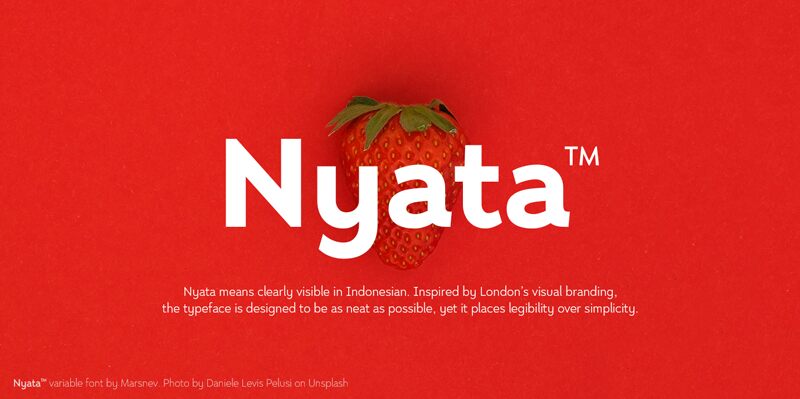
Nyata Clearly Visible, No Matter What.
I love London for its finest visual branding, especially its Johnston typeface spreading all over the city. It inspired me to create this new font-family: Nyata.
Nyata means clearly visible in Indonesian. The typeface is designed to be clean, unique, and legible. It is a great combination for any display requiring high legibility, such as the city's way-finder.
Long ascenders help some characters more obvious. You will never confuse whether it is an h or an n. Moreover, I tried to create all the letters that are distinguishable. Of course, no time for people to doubt between Uppercase I and lowercase l when seeing a way-finder. Last but not least, it is equipped with tons of OpenType features such as slashed zero to help the words more obvious, or stylistic sets if you don't fancy the serifed uppercase I.
Nyata is also delivered in Variable Font format. Enjoy all the styles and everything in between in one variable font only sized less than 150kb.